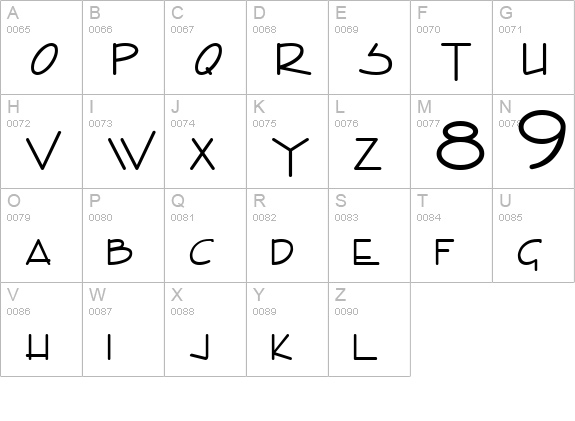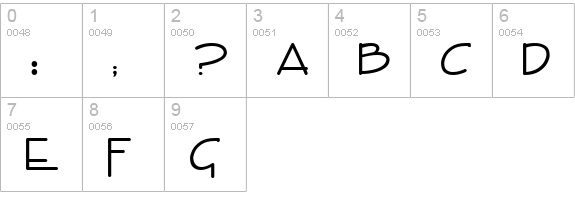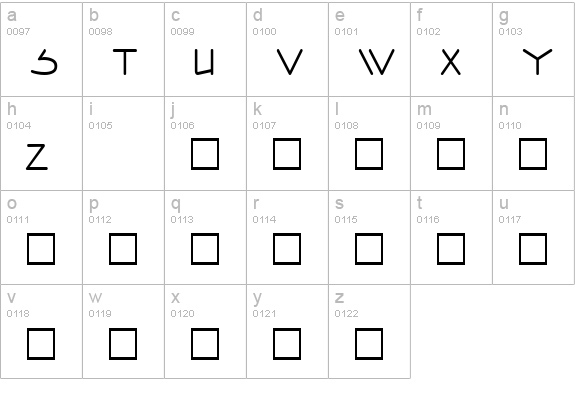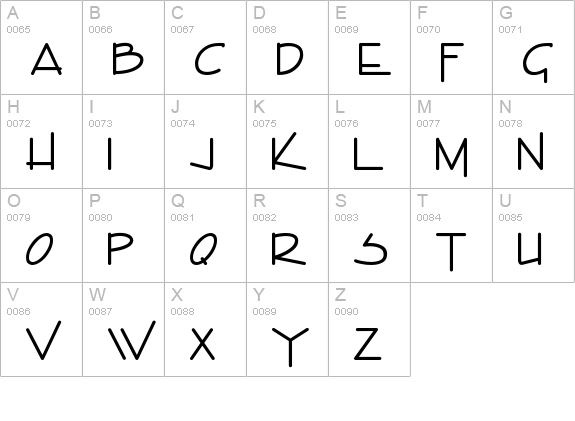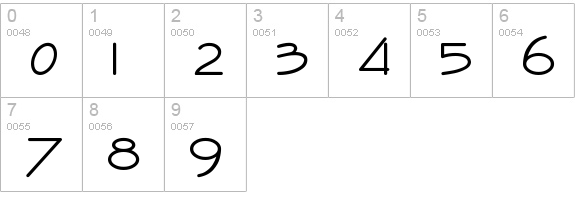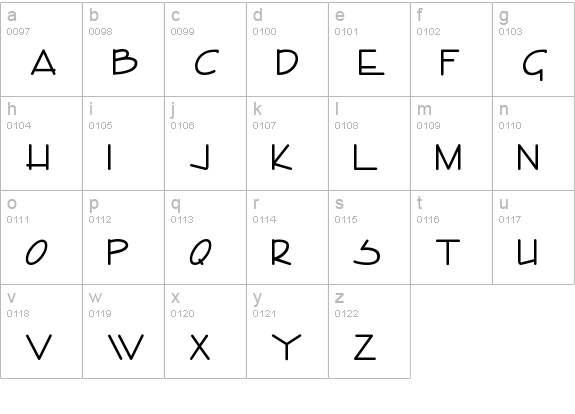
Nviray Font Details
Nviray font is a stunning and versatile typeface that exudes elegance and sophistication. With its sleek lines and modern design, Nviray is perfect for a wide range of projects, from branding to web design to print materials. What sets Nviray font apart is not only its exquisite aesthetic appeal but also its accessibility. This beautiful font is available for free download at FontsMarket.com, making it easily accessible to designers and creatives looking to elevate their projects with a touch of elegance. Whether you're working on a logo, a website, or a brochure, Nviray font will add a touch of style and class to your designs. Download Nviray font today and see for yourself how this exquisite typeface can take your projects to the next level.